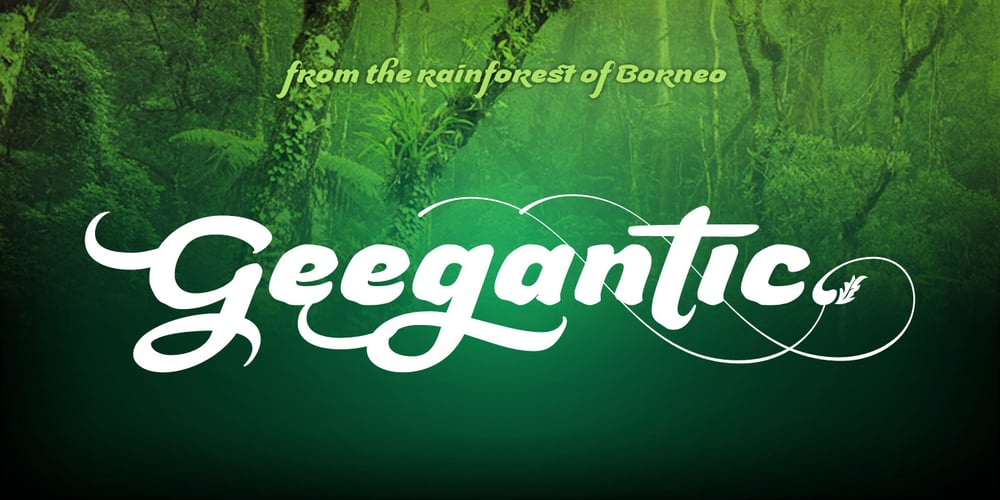
Geegantic Font Family was designed by Andi A. W. Masry and published by Campotype. Geegantic contains 1 styles and family package options. The rainforest of Borneo which has a wealth of big trees and lush is the basis of inspiration of the Geegantic font. Therefore Geegantic has little difference with a similar font that usually appear in the feminine form. As you can see, Geegantic has the form of contrast stroke, a thick and casual. As display fonts, Geegantic aims to touch the needs of the general usage of displays, branding and advertising. However, under certain conditions, it is also possible to fill the text area.